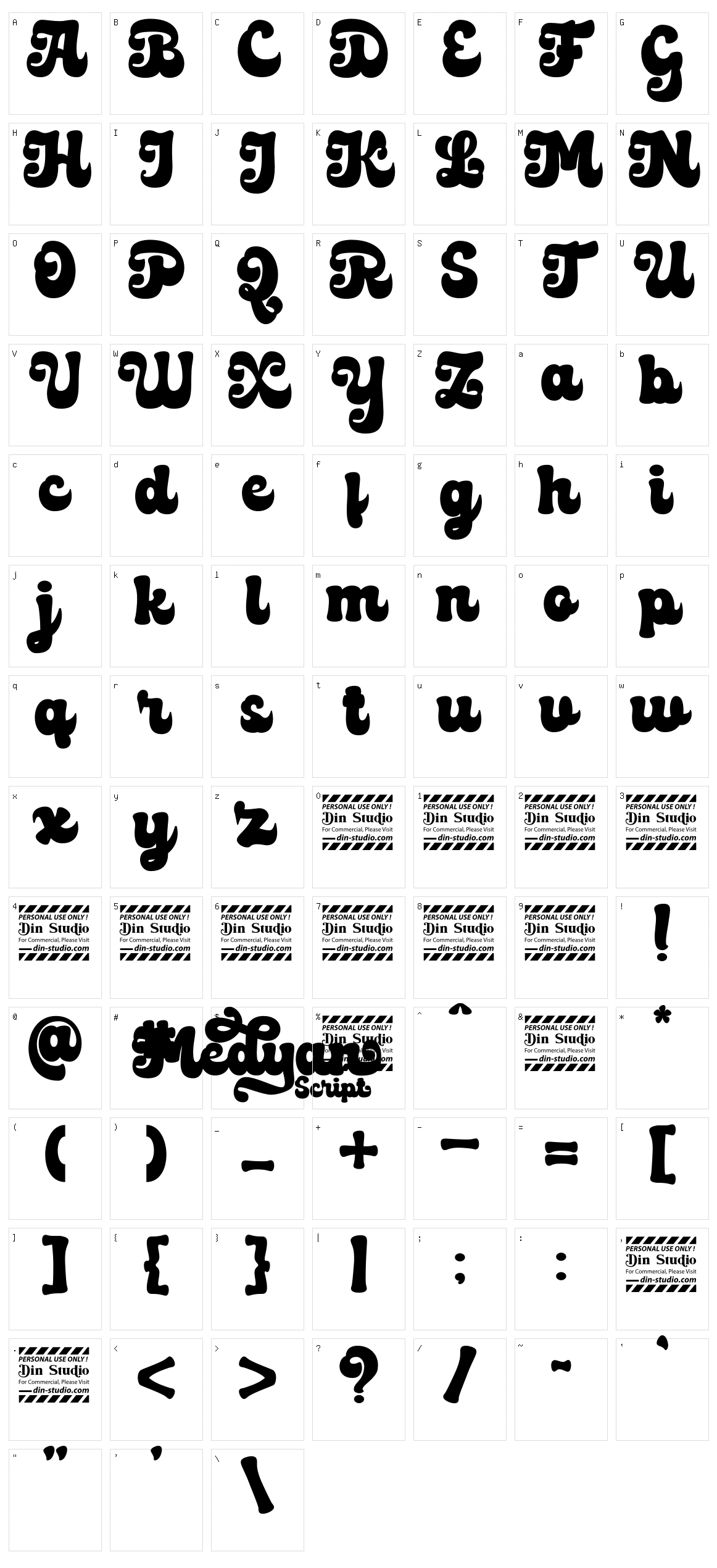
The free font Medyan Script is carefully designed by Din Studio, showcasing a thoughtful balance of creativity and usability and falls under the Groovy font style. When you download the ZIP file, it contains only 328.76 KB of font files, making it lightweight and quick to download. Please review the license details below to understand permitted usage and distribution rights. If license information is not available, we recommend using this font for personal projects only or contacting the author directly for commercial usage permissions.